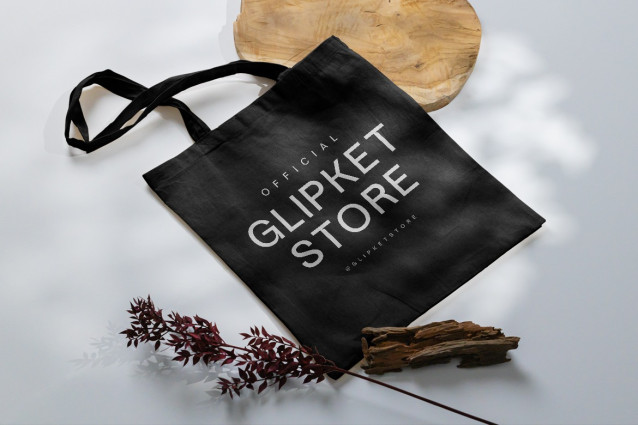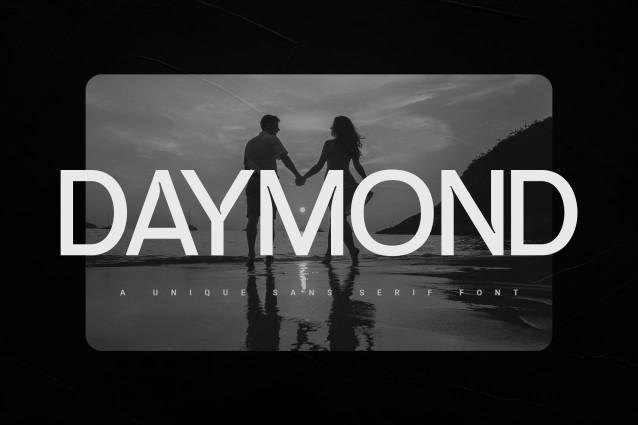
Daymond Font
Daymond Font, a modern sans serif font that blends minimalist elegance with a touch of unique character. Carefully crafted to deliver a clean yet distinctive impression, Daymond is the perfect choice for a wide array of your creative projects.
With its sharp lines and balanced proportions, Daymond offers exceptional legibility at various sizes, making it ideal for headings, body text, logos, branding, editorial design, websites, and much more. Its contemporary aesthetic will add a professional and classy touch to any design.